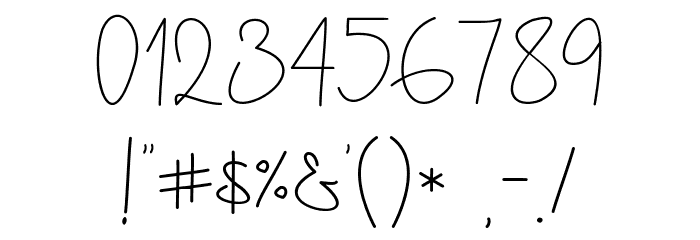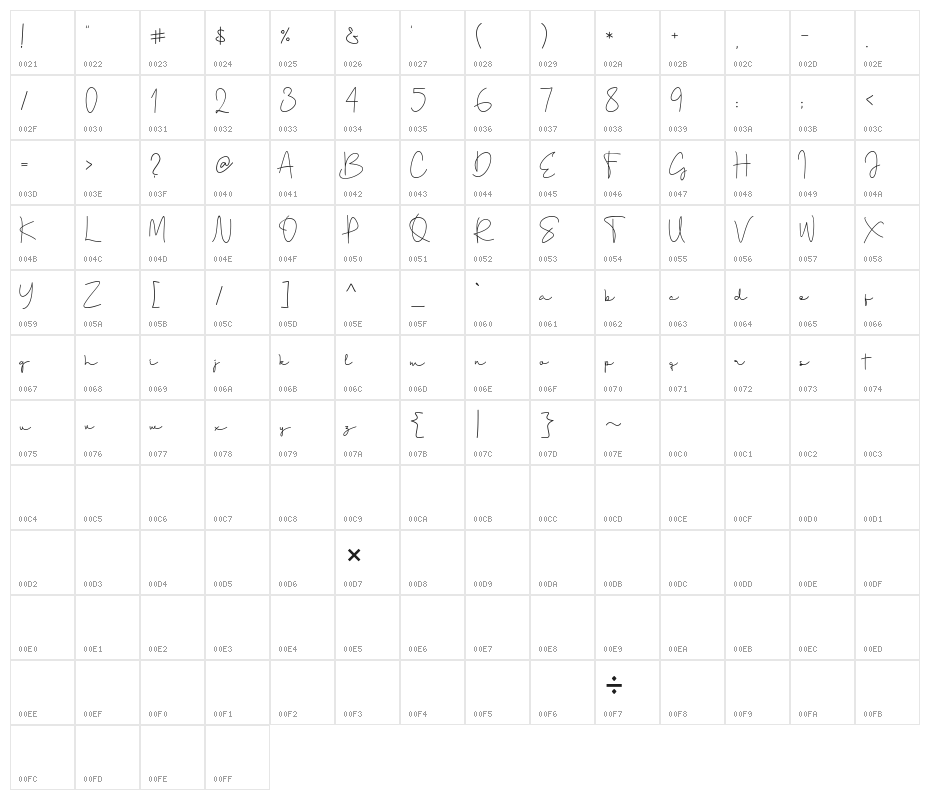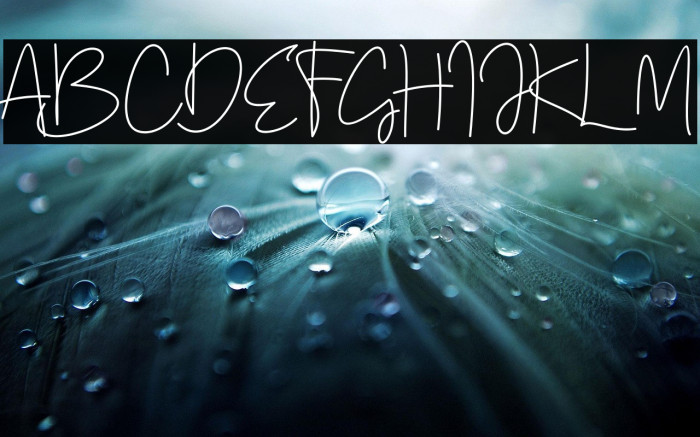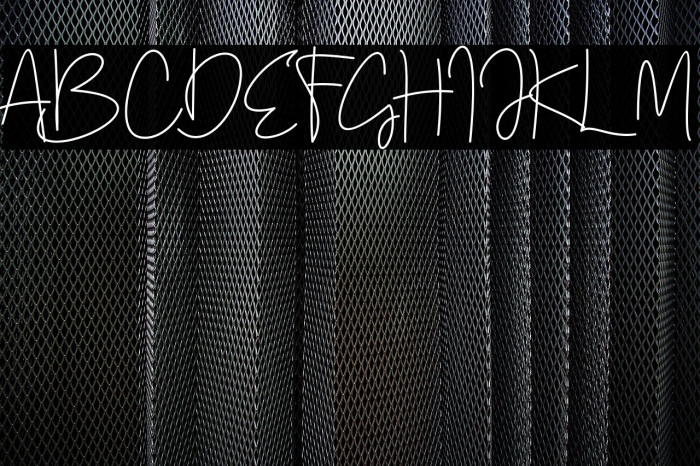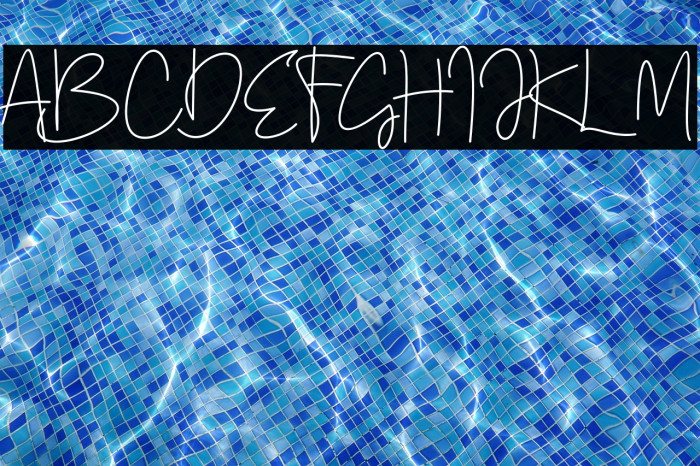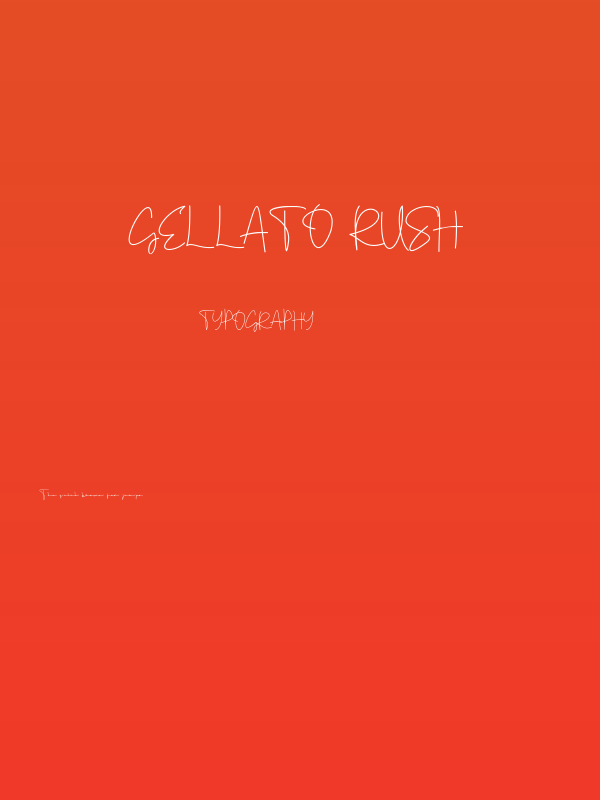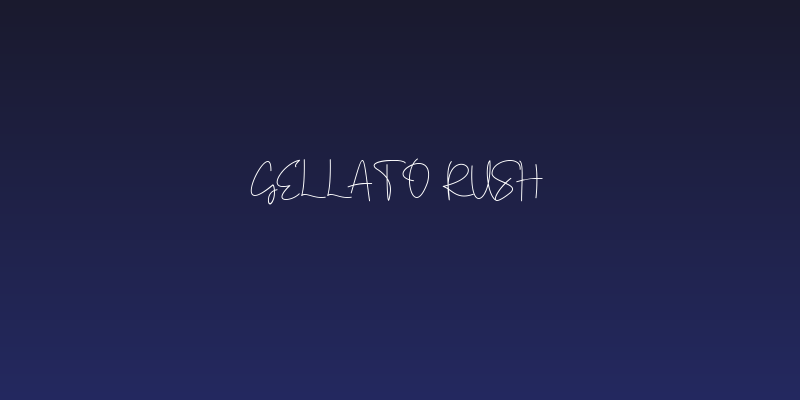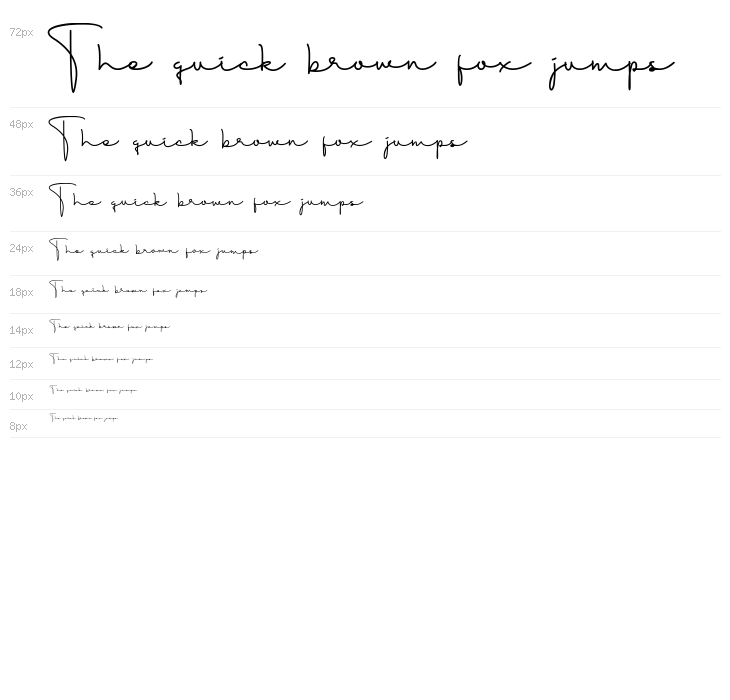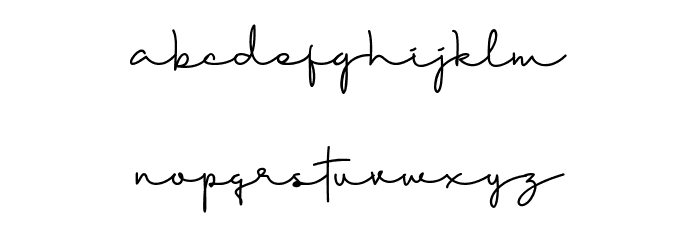
Gellato Rush Font
Gellato Rush Description
This font exudes a playful and casual vibe with its handwritten style. The letters are characterized by their fluid, continuous strokes, giving them a natural and organic appearance. The uppercase letters are bold and slightly exaggerated, while the lowercase letters maintain a more delicate and flowing form. Numbers and special characters follow the same whimsical style, ensuring consistency throughout. The overall look is informal yet stylish, making it suitable for creative and artistic projects. Its unique charm lies in the imperfect, human touch that each character embodies, making it perfect for conveying a personal and approachable tone.